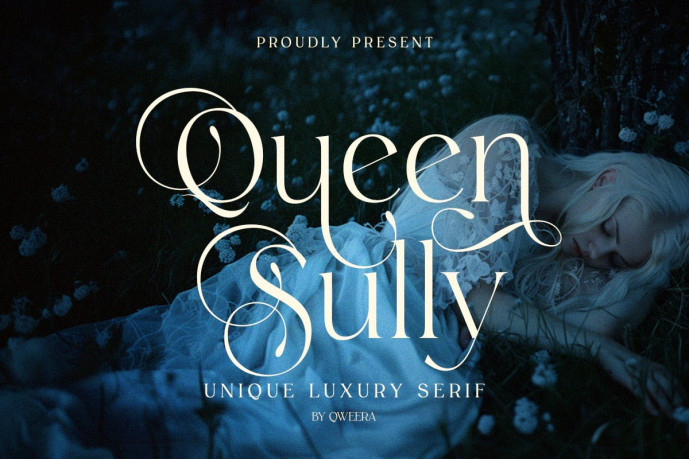
Queen Sully – Modern Luxury Swash Serif Font
Designer: Idhham Cholid Rikzano Yahya
Queen Sully is a unique luxury serif font crafted for floral branding, wedding design, jewelry logos, elegant invitations, beauty packaging, and refined visual identity. With its graceful swashes, romantic serif structure, and expressive ligature details, Queen Sully brings an ethereal, feminine, and sophisticated presence to modern design projects.
Its luxurious display character works beautifully for nocturne florists, wedding websites, jewelry branding, boutique logos, perfume labels, editorial layouts, beauty campaigns, product packaging, and premium social media visuals. Queen Sully includes uppercase and lowercase characters, stylish alternates, ligatures, multilingual support, professional kerning, Regular and Italic styles, plus OTF, TTF formats for polished print and digital use.
Bring romantic luxury, graceful floral elegance, and refined serif beauty into your next branding, wedding, or packaging project with Queen Sully.
Unique luxury serif style
Complete uppercase and lowercase characters
Stylish alternates and ligatures
Multilingual character support
Professional kerning for polished typography
Regular and Italic font styles
Romantic swash details for floral, wedding, and beauty branding